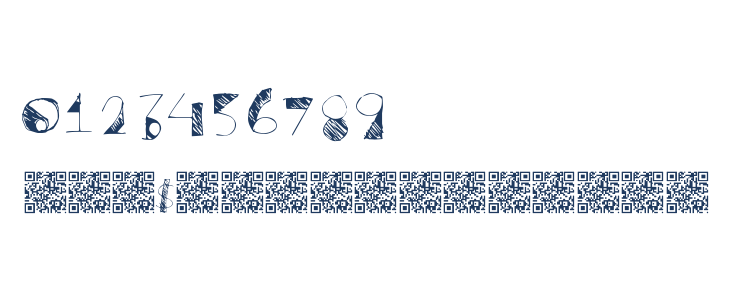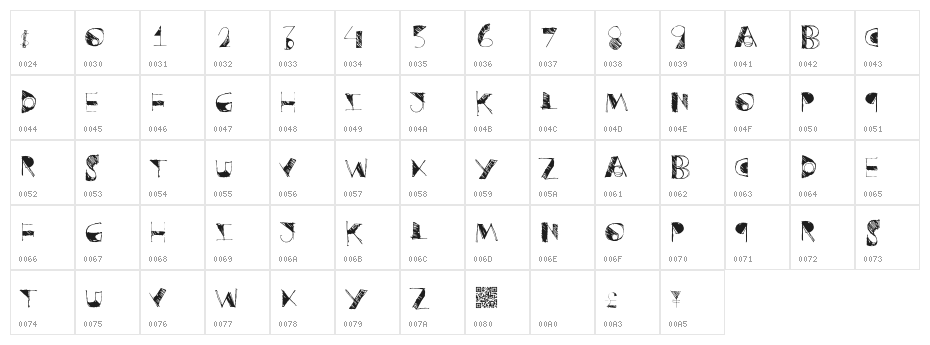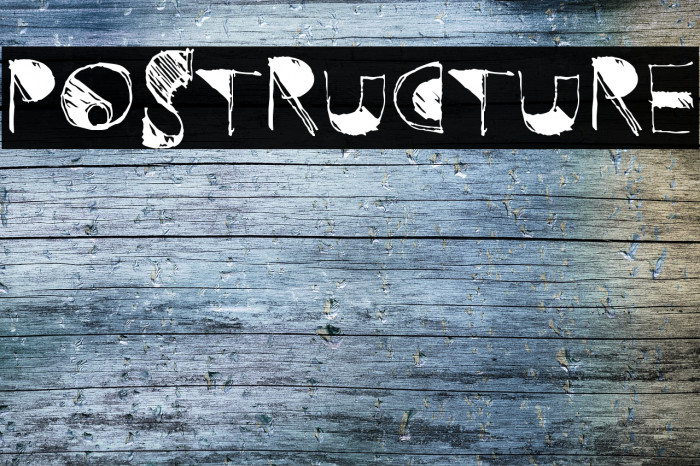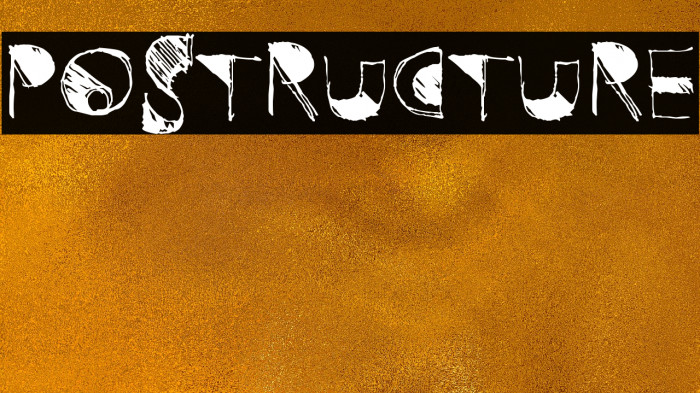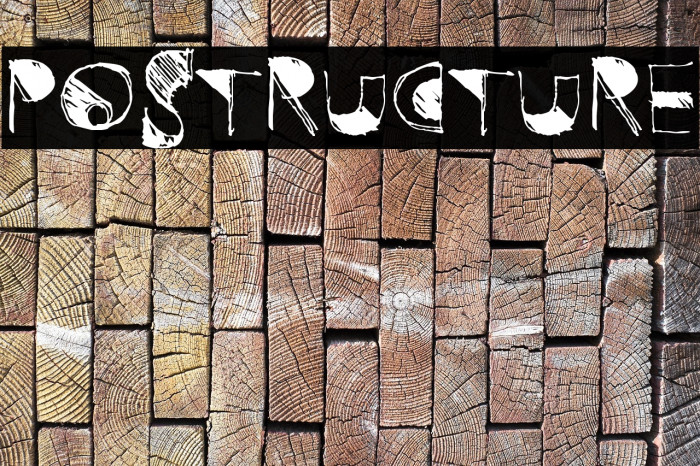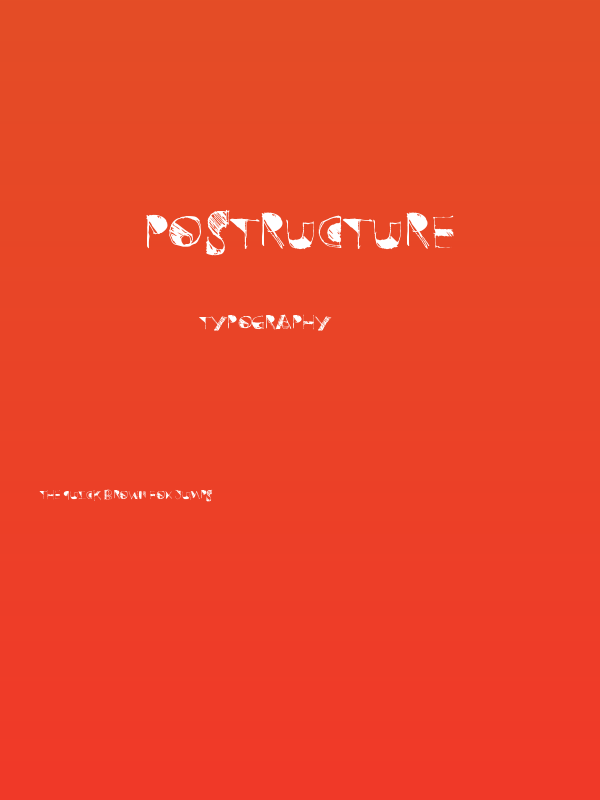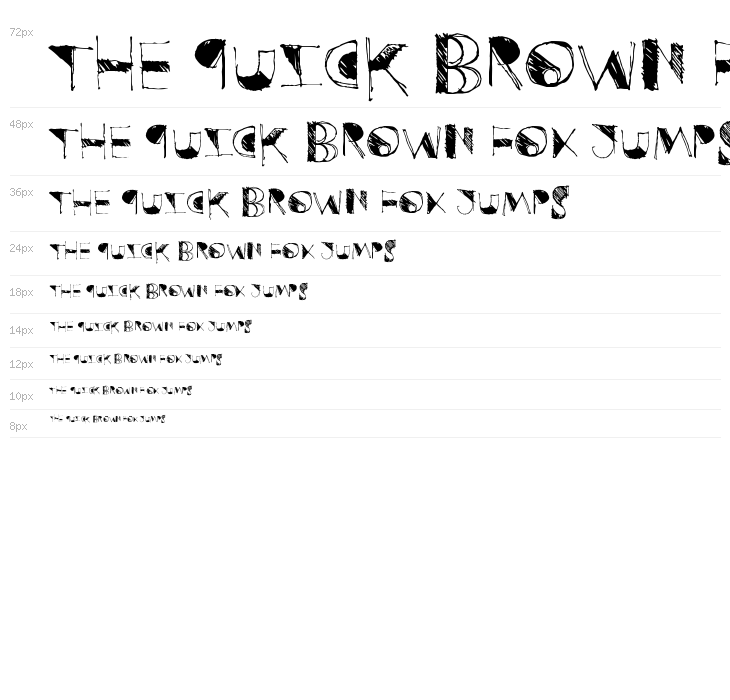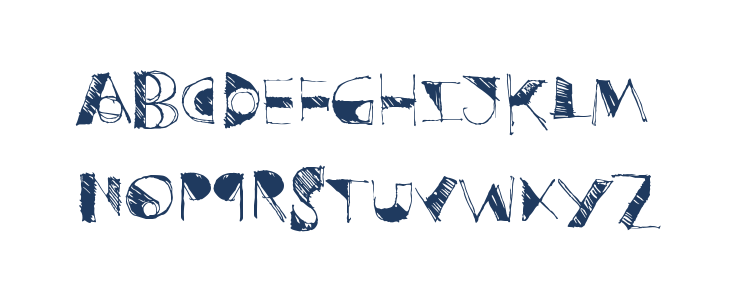
Postructure Font
Postructure Description
This font features a highly artistic and abstract design, characterized by its sketch-like, hand-drawn appearance. Each letter is uniquely crafted with irregular strokes and varying thicknesses, giving it a dynamic and expressive feel. The uppercase and lowercase letters maintain a consistent style, with elements of both angular and curved lines. Numbers and special characters follow the same artistic theme, ensuring a cohesive look throughout. The font's playful and unconventional nature makes it stand out, ideal for creative projects that require a bold and distinctive visual impact.
| Overall Style | Artistic, Expressive |
| Proposed Projects | Ideal for album covers, posters, art projects, and creative branding. |